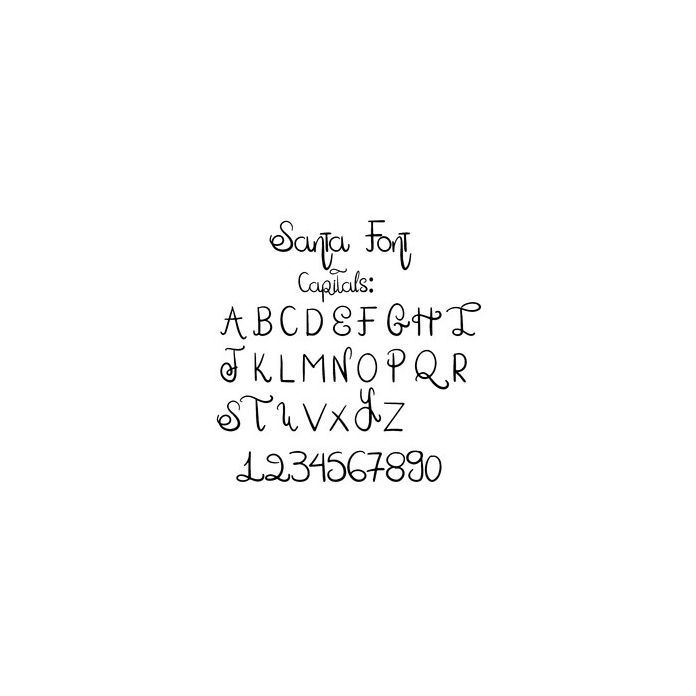
Santa Script Decorative Font
A cute round semi-script font with alternate letters that can be combined to create exciting quotes. It contains Small, Capital, Numbers, and Basic Punctuation. Alternate Letters can be accessed through the Glyphs Panel.